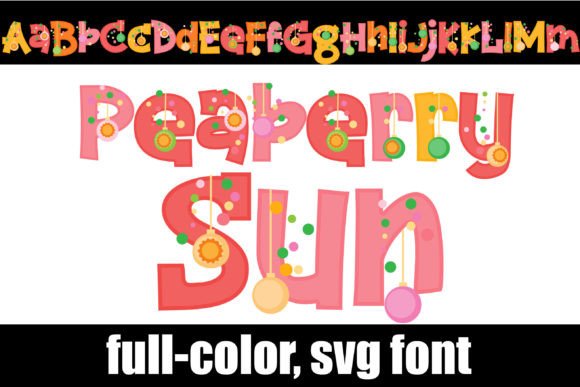
Get Ready to Experience a Burst of Colors with Peaberry Sun Font!
Unlock the door to a world where your designs flourish with vibrant hues and playful aesthetics. Peaberry Sun Font, meticulously crafted by Illustration Ink, presents an extraordinary collection of full-color OpenType (SVG) fonts that will transform your creative vision into a visual masterpiece.
Step into a realm of creativity where fonts are more than just letters; they're radiant strokes of artistry. Embark on a journey of self-expression as you discover the limitless possibilities that await within the Peaberry Sun Font family.
Immerse yourself in a symphony of colors as Peaberry Sun Font dances across your screen. Its warm, inviting hues and intricate ornaments infuse your designs with a sense of joy and playfulness. From social media posts to eye-catching logos, this font will leave an indelible mark on your audience.
Beyond its aesthetic allure, Peaberry Sun Font is a versatile performer, effortlessly adapting to a diverse range of creative endeavors. Unleash your imagination in the realm of branding, packaging, web design, and beyond. Let your designs bloom with the vibrant personality of this font family.
But wait, there's more! Peaberry Sun Font holds a secret up its sleeve - an alternate version accessible through your system's character map. This hidden treasure grants you access to an expanded palette of colors for each letter, further fueling your design possibilities.
Savor the delightful anticipation as you watch Peaberry Sun Font transform your creations before your eyes. Witness the magic unfold as your designs burst into a kaleidoscope of colors, captivating your audience with every stroke.